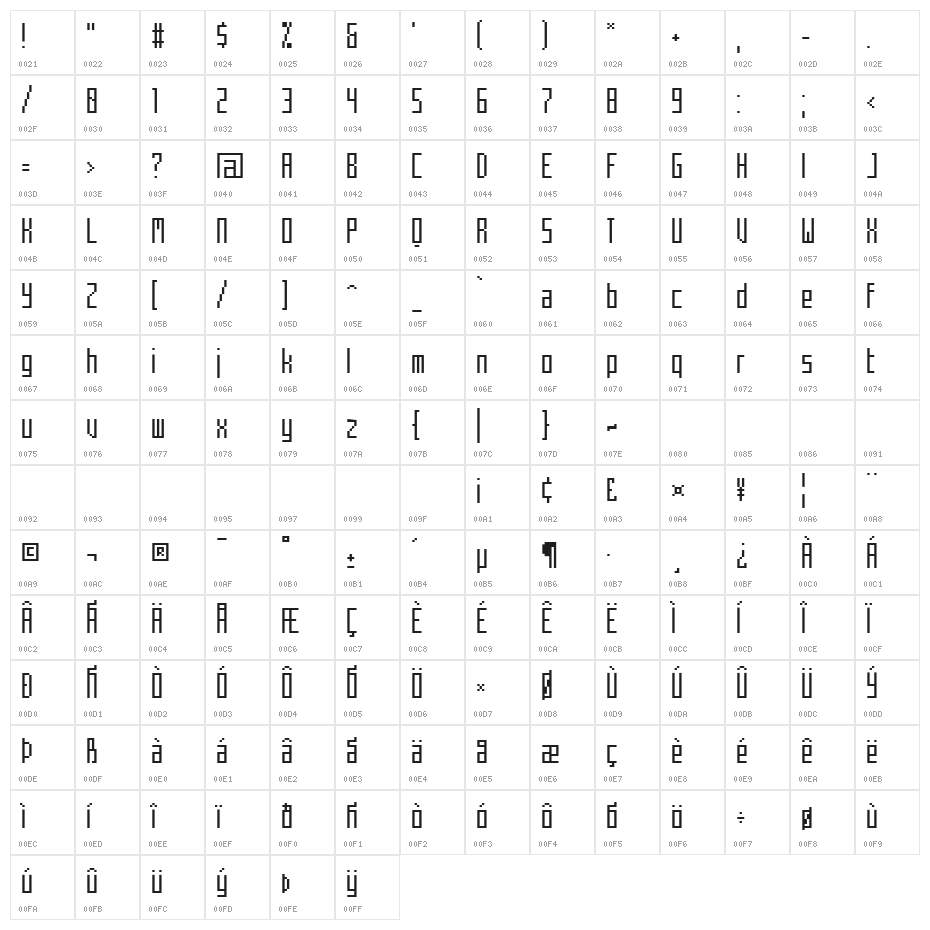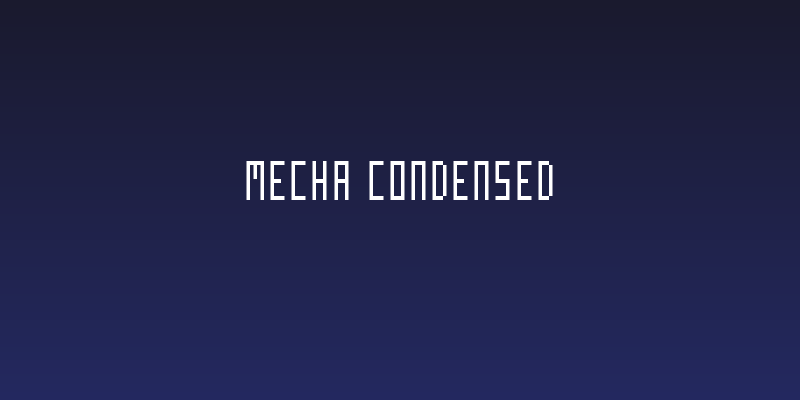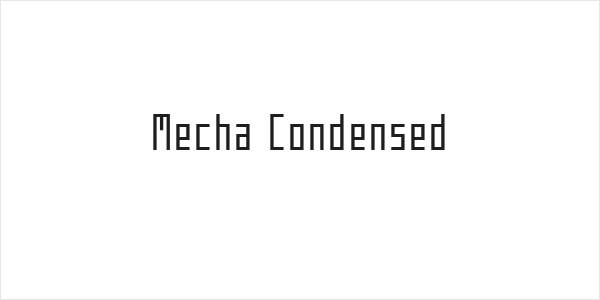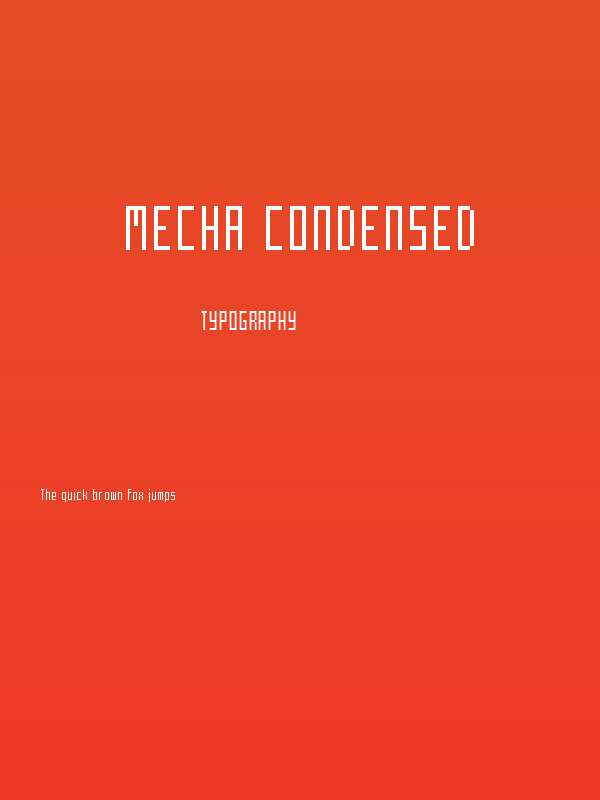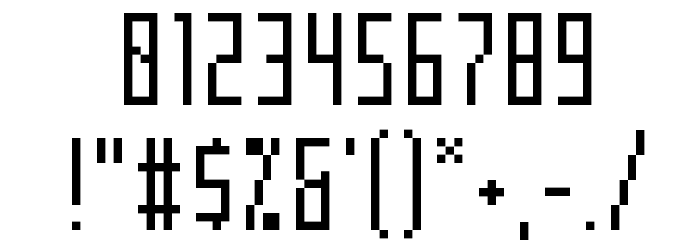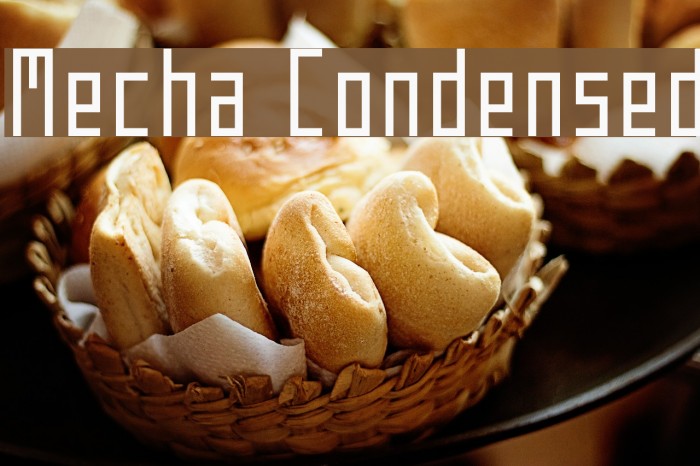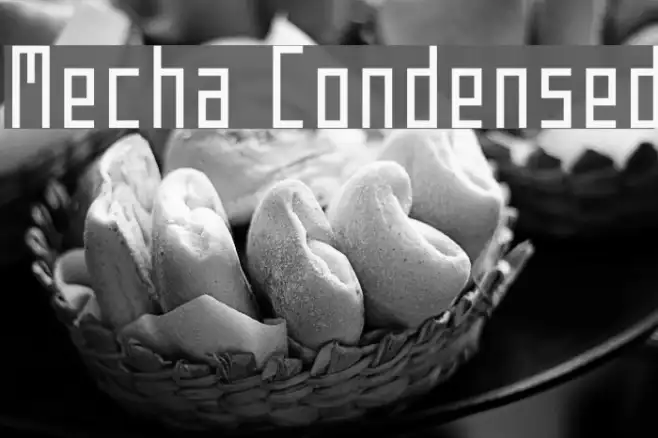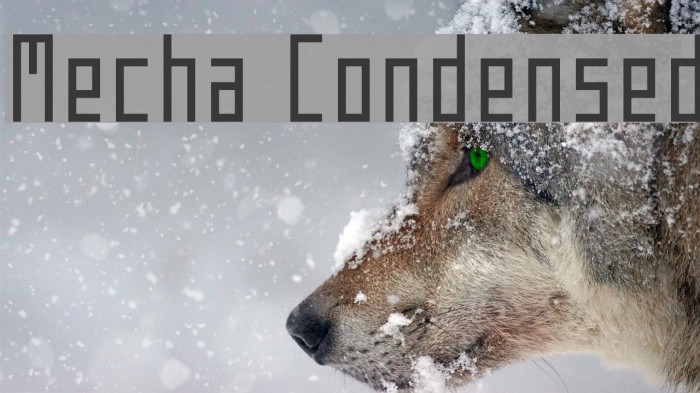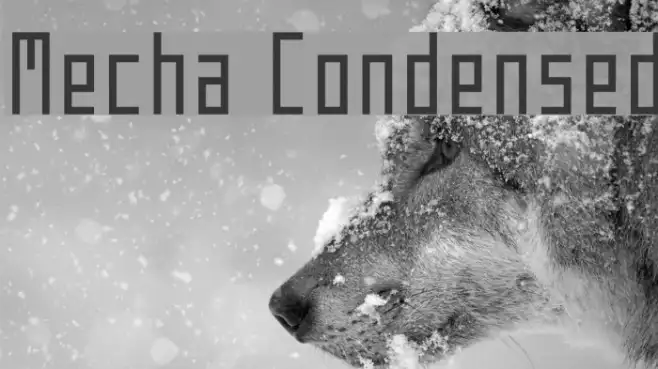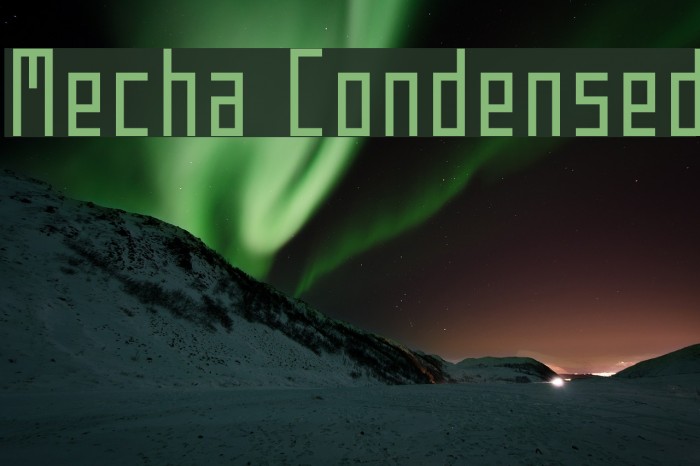
Mecha Condensed Font
Mecha Condensed Description
This font features a futuristic and mechanical aesthetic with a condensed structure. The characters are tall and narrow, with a geometric and angular design that gives a modern, tech-inspired feel. The uppercase and lowercase letters maintain a consistent height, emphasizing the condensed nature of the font. The numerals and special characters follow the same design principles, ensuring uniformity across all glyphs. The strokes are uniform in thickness, contributing to a low contrast appearance. This font's style is ideal for projects that require a sleek, modern look with a hint of industrial design.
| Proposed Projects | Ideal for tech-related branding, futuristic posters, video game interfaces, and sci-fi themed projects. |